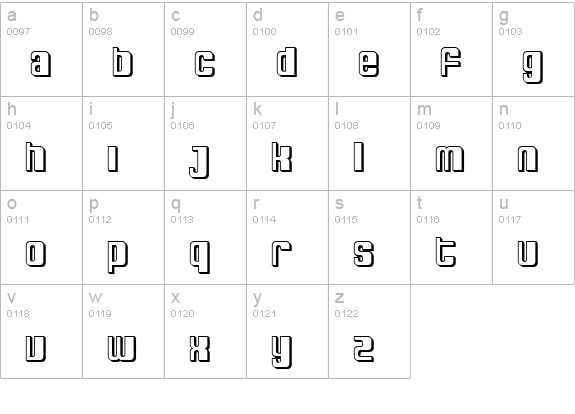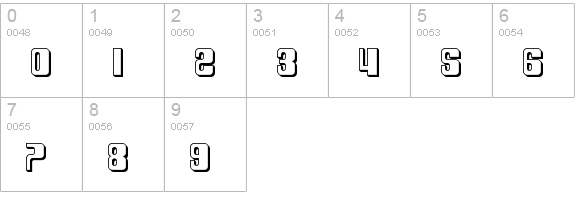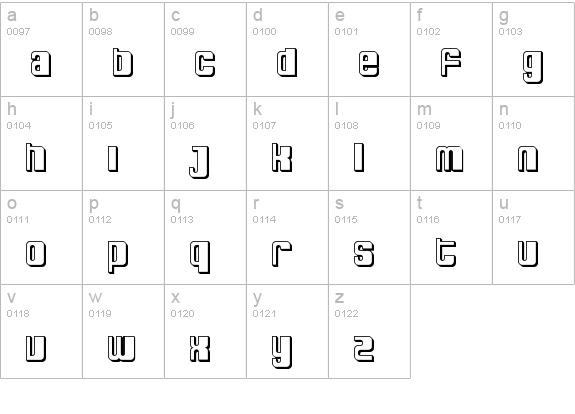
SF DecoTechno Shaded Font Details
SF DecoTechno Shaded is a stunning font that effortlessly combines the elegance of Art Deco with the futuristic vibes of Techno. This unique fusion results in a visually striking typeface that is sure to captivate and inspire. With its bold and geometric letterforms, SF DecoTechno Shaded exudes a sense of strength and modernity. The shading adds depth and dimension, giving the font a three-dimensional appearance that further enhances its visual impact. Perfect for a wide range of design projects, this font is ideal for creating eye-catching headlines, posters, logos, and more. Its versatility allows it to be used in both digital and print mediums, ensuring that your message will be communicated effectively across various platforms. The best part is that SF DecoTechno Shaded is available for free download at FontsMarket.com. This means that you can effortlessly enhance your designs without breaking the bank. Whether you are a professional designer or a casual hobbyist, this font provides you with the opportunity to elevate your work to new heights. So why wait? Don't miss out on the chance to add SF DecoTechno Shaded to your font collection. Head over to FontsMarket.com now and download this incredible font for free. Unleash your creativity and let SF DecoTechno Shaded be the centerpiece of your next design project.